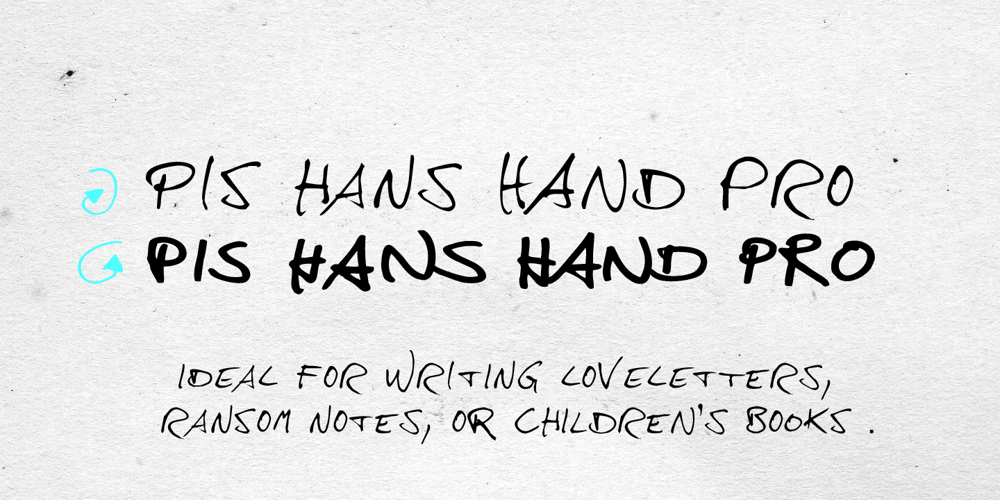
PiS HansHand Pro Font Family was designed by Hannes Siengalewicz and published by PiS. PiS HansHand Pro contains 3 styles and family package options. HansHand started out in 2003 as a simple free font, the adaption of my grimy handwriting. For its 10th anniversary it got a complete overhaul and lots of new characters. Now also available in BOLD for the first time, featuring scribbles, strokes, circles and boxes to underline the fast taking-notes-while-on-the-phone look!